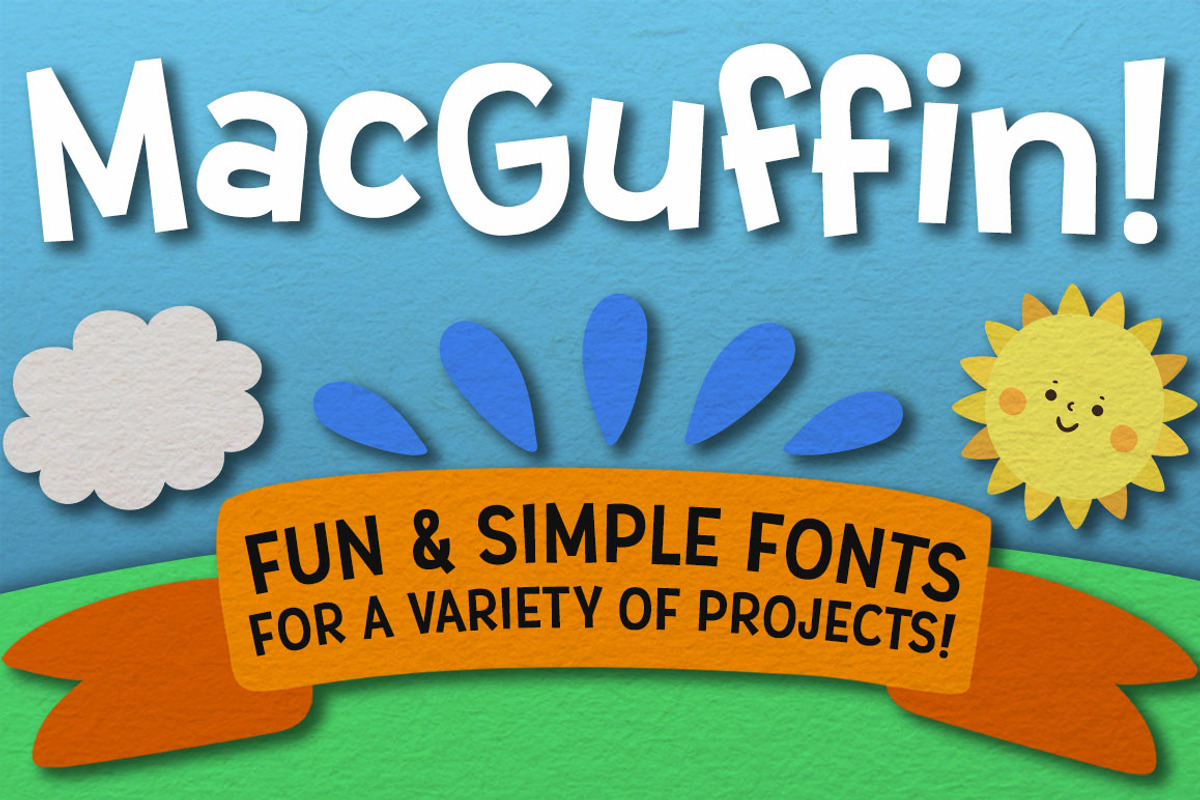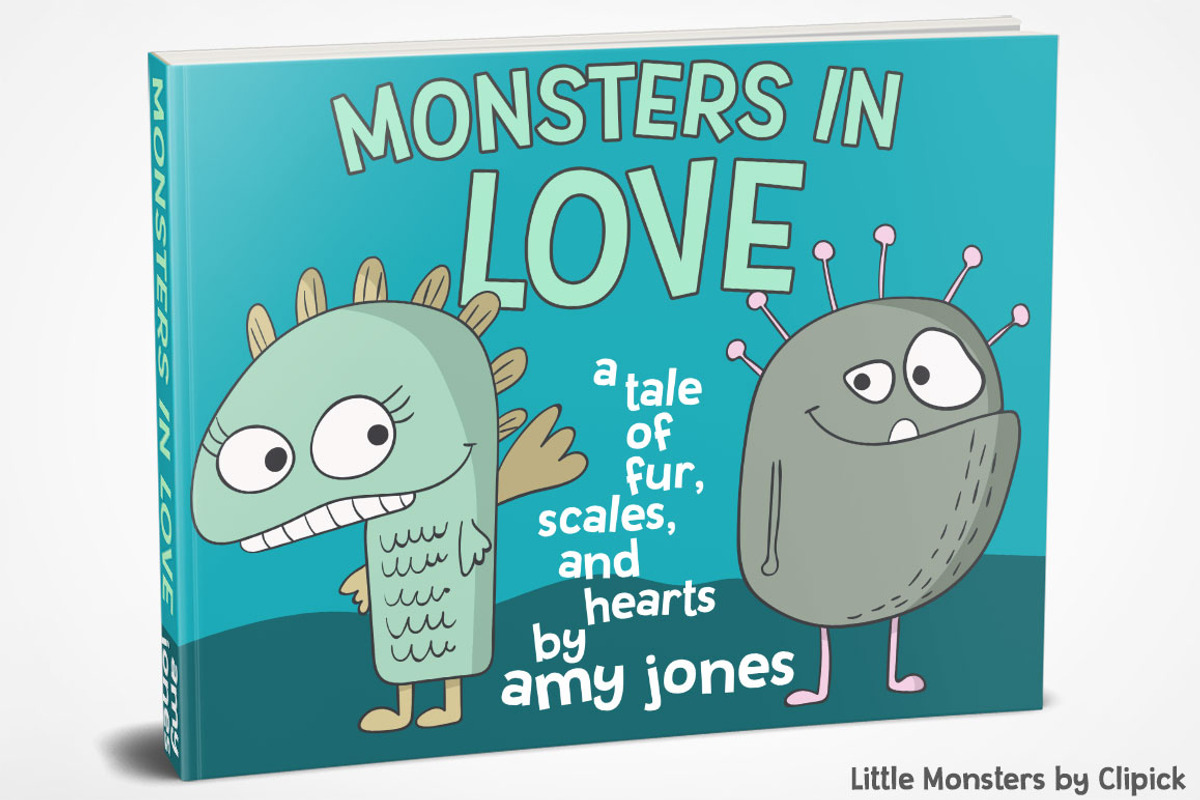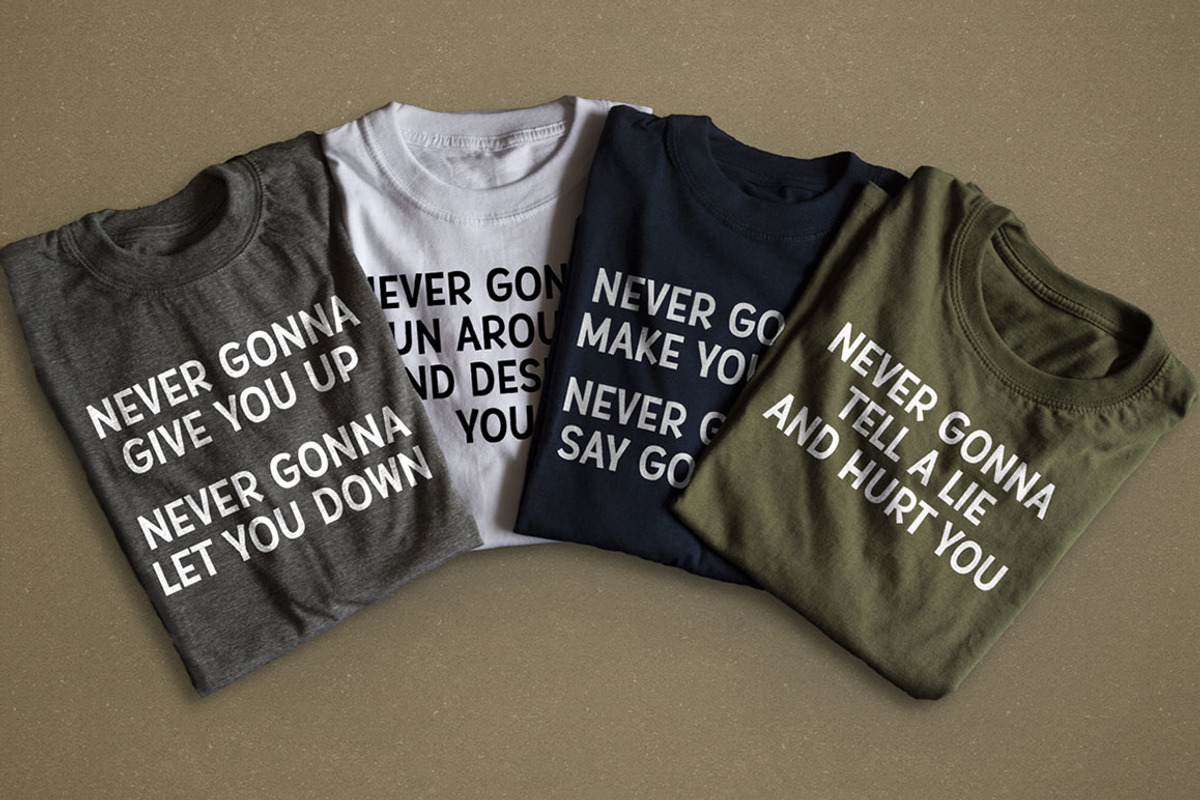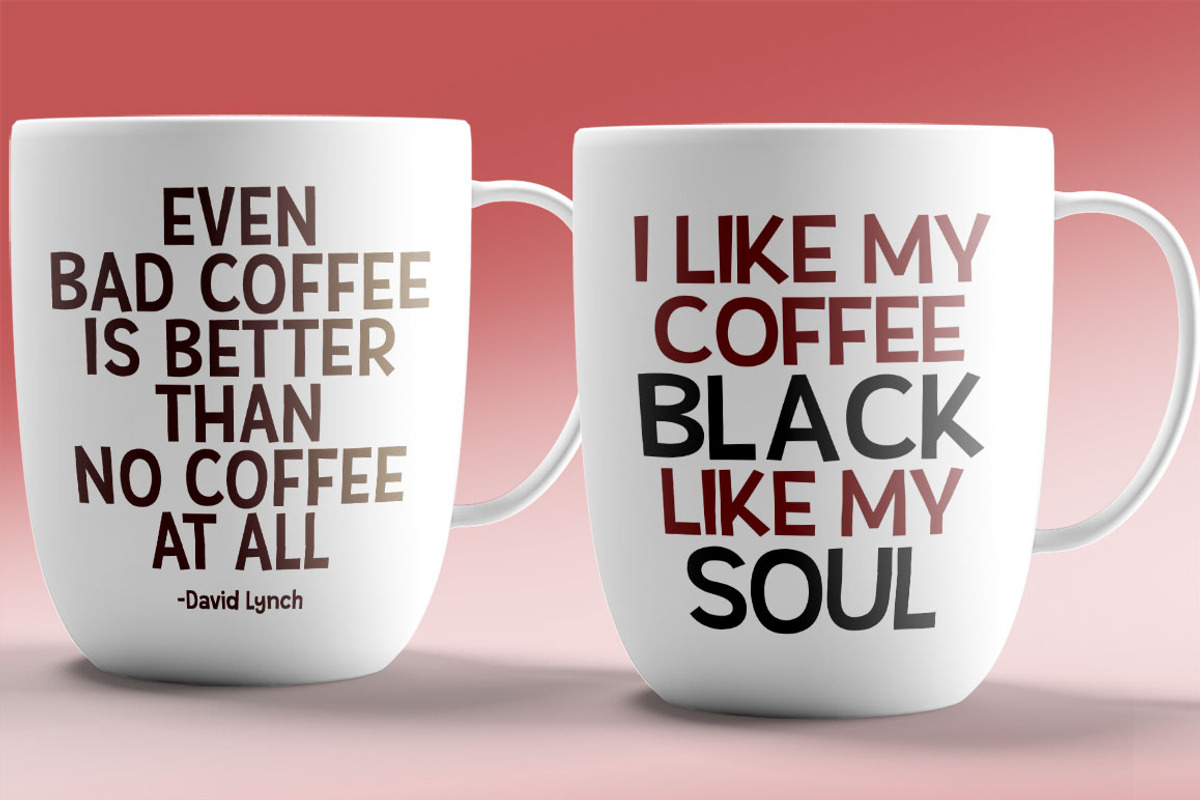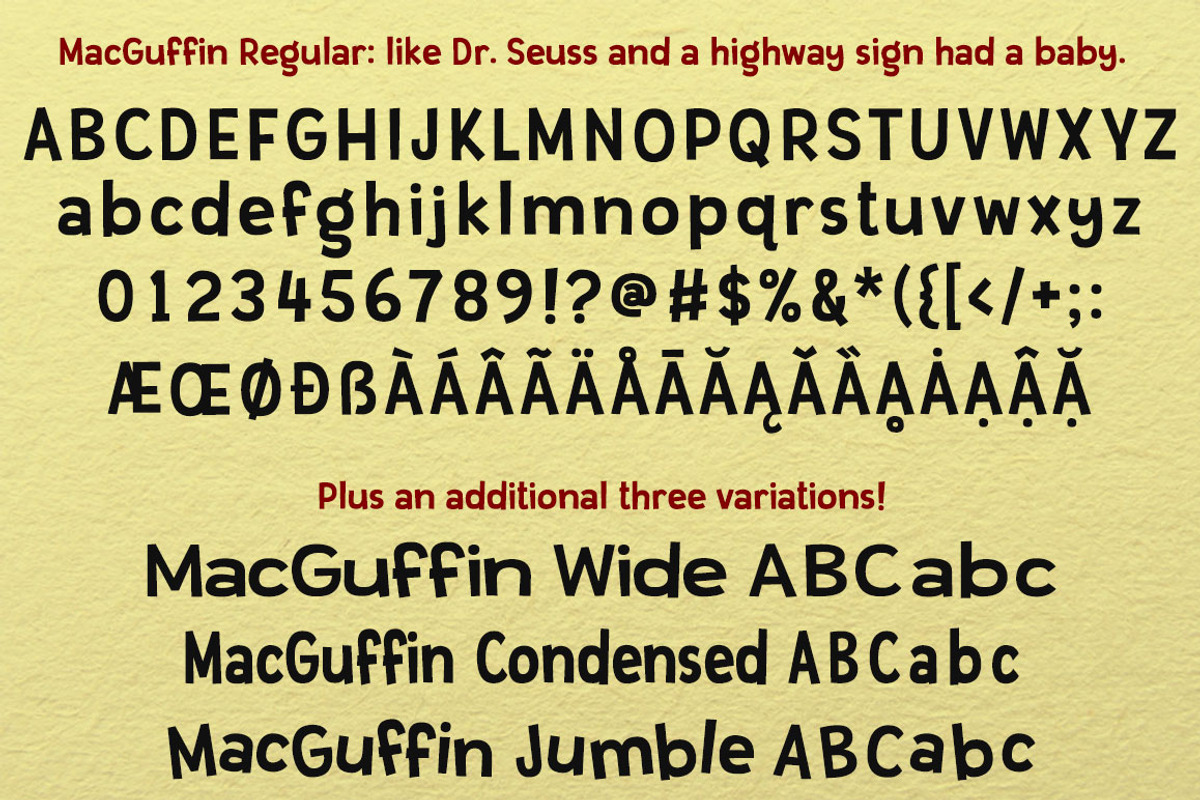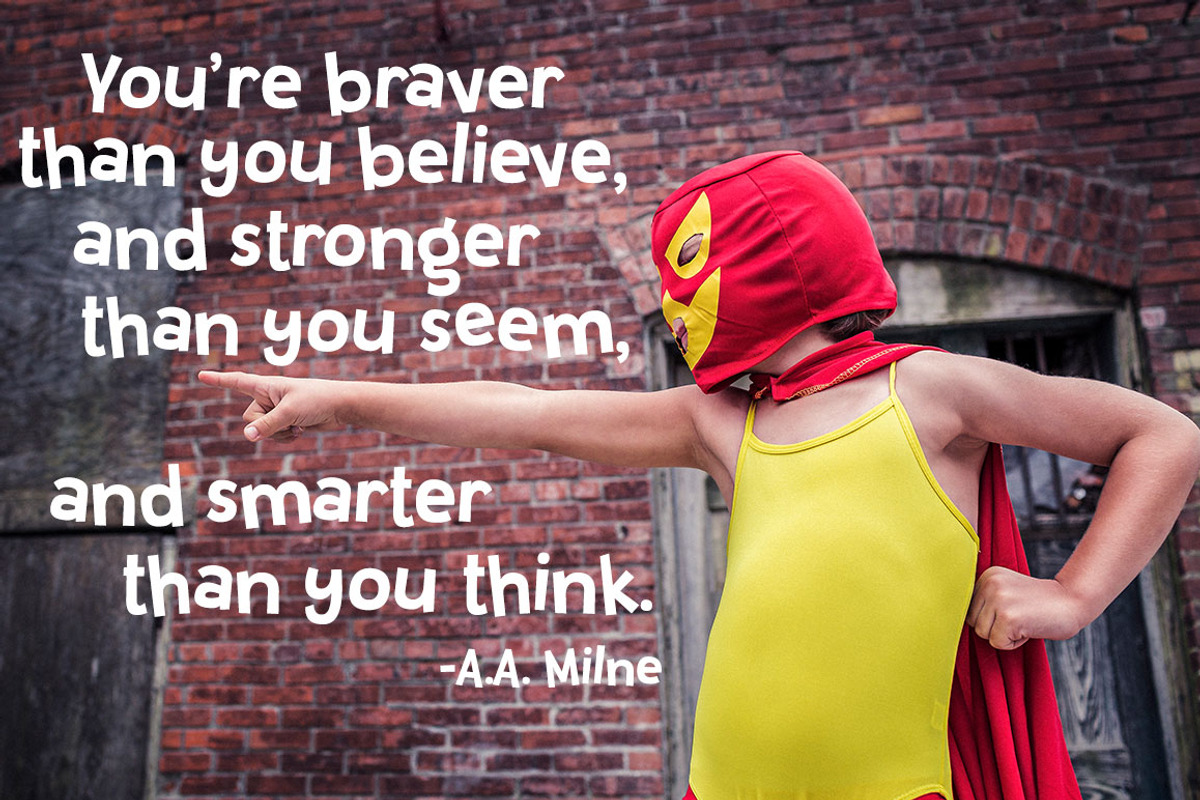
MacGuffin fun font set
MacGuffin fun font set by Missy Meyer is a font selected for branding, posters, packaging, typography.
- Jumble contains 30 additional double-letter ligatures
Why MacGuffin fun font set is worth a look
MacGuffin fun font set by Missy Meyer fits naturally into Branding, posters, packaging, typography.